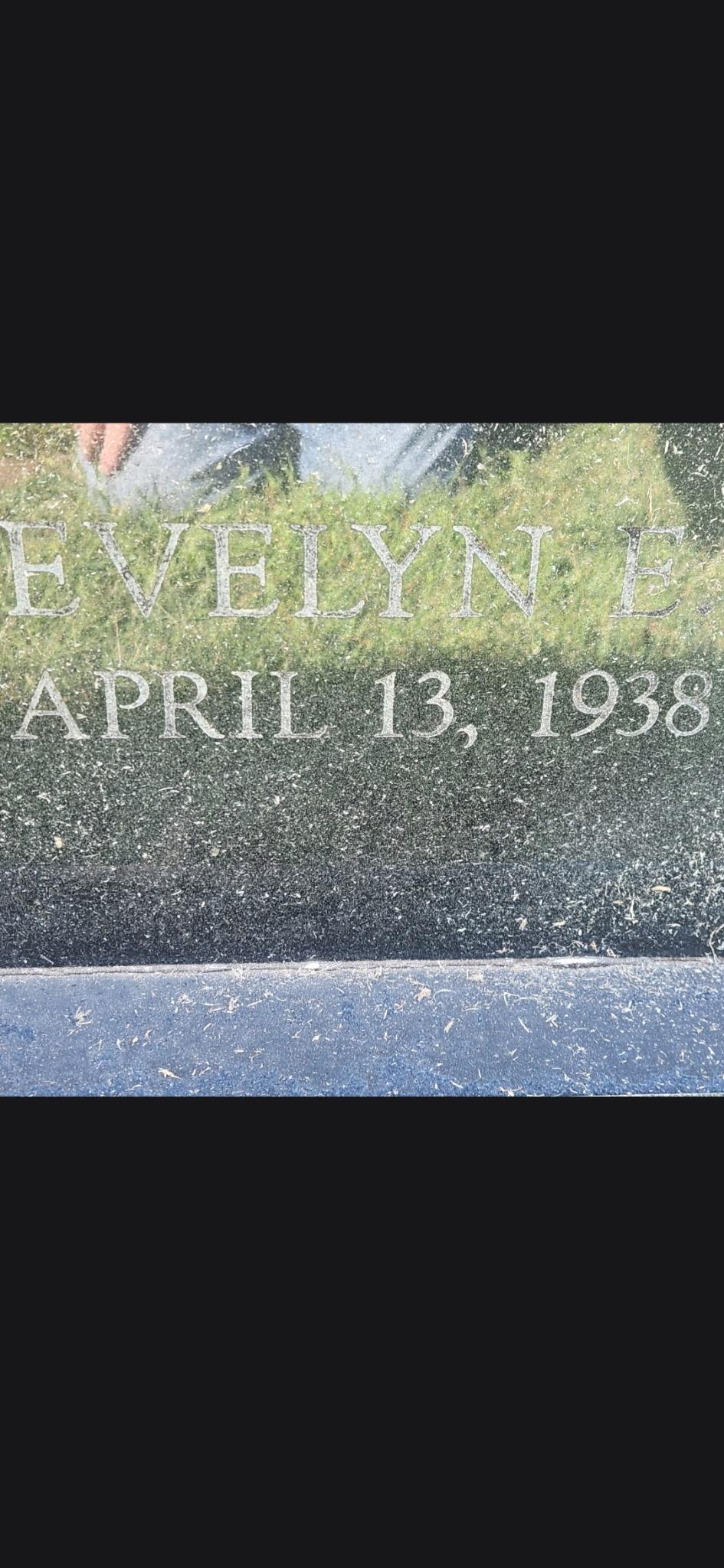
this one looks familiar? font id
okay, so I typed this in my Monu-Cad, and it is so very close to “Gumpy1”
is there a true type that this was based on that has more square bottoms?
or do you all think this is Gumpy1?
Hello, the Monu-Cad font “Gumpy” is a redrawn version of the print industry font Goudy Bold. The font in your image is a different version of Goudy named Goudy Old Style.